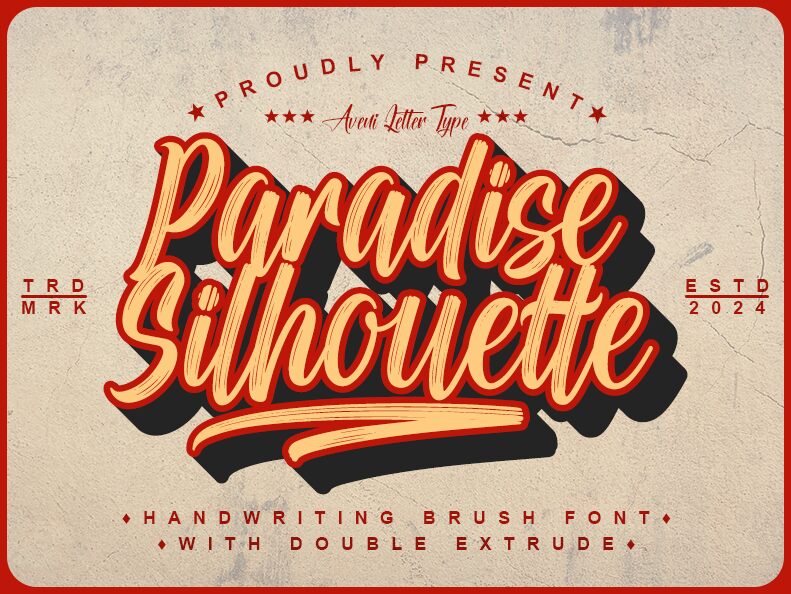
Paradise Silhouette
Paradise Silhouette font designed by Aveni Letter Type is an expressive, cursive style handwriting brush font. The condensed lettering has an organic flow which adds to the overall casual, yet elegant appearance. Each of the letters looks hand-drawn with even pressure similar to that of a thin round paintbrush. This balance offers a chill vibe while remaining artistic and sophisticated.